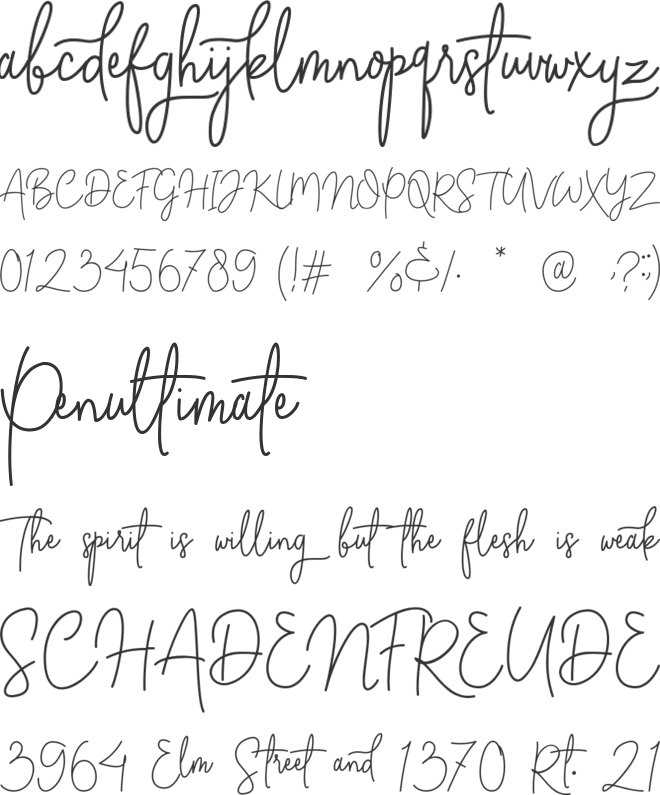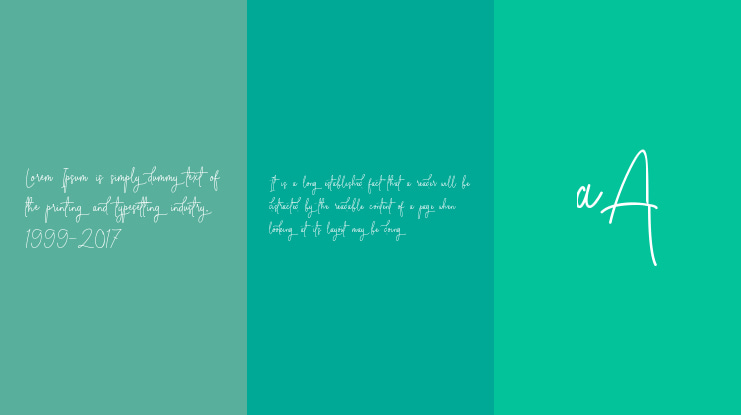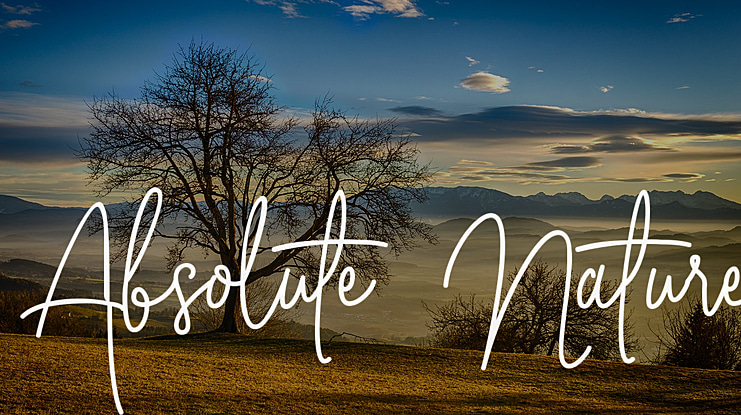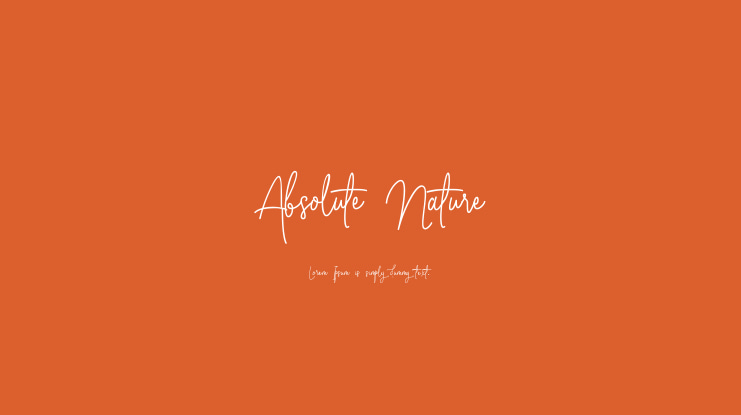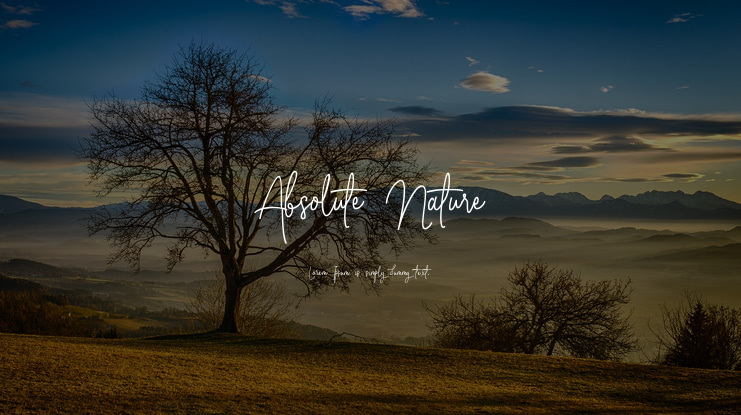
Absolute Nature Font
Absolute Nature is a sophisticated signature collection which looks elegant and charming. Included in the modern script family, make this font look dynamic like a sweep of a signature that looks free. Suitable for design project needs ranging from web sites, social media, quotes, brand design, magazines to billboards.